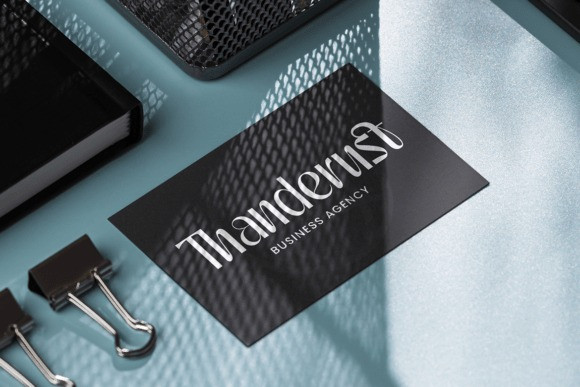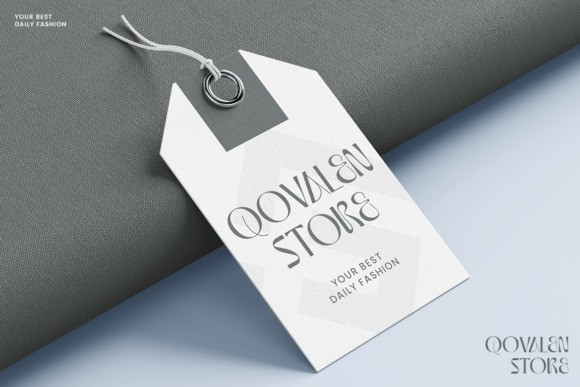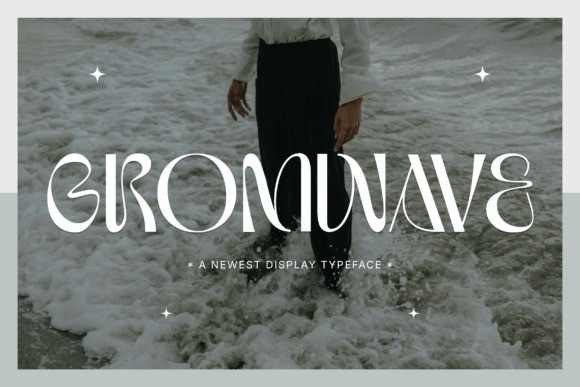
Gromwave Font
Gromwave Font is a modern luxury font that merges minimalist elegance with a unique, eye-catching style. Its clean lines and sophisticated, wavy letterforms give it a distinctive and refined character. This typeface is perfect for projects that require a touch of luxury and a premium feel, bringing a sense of exclusivity and high-end design.